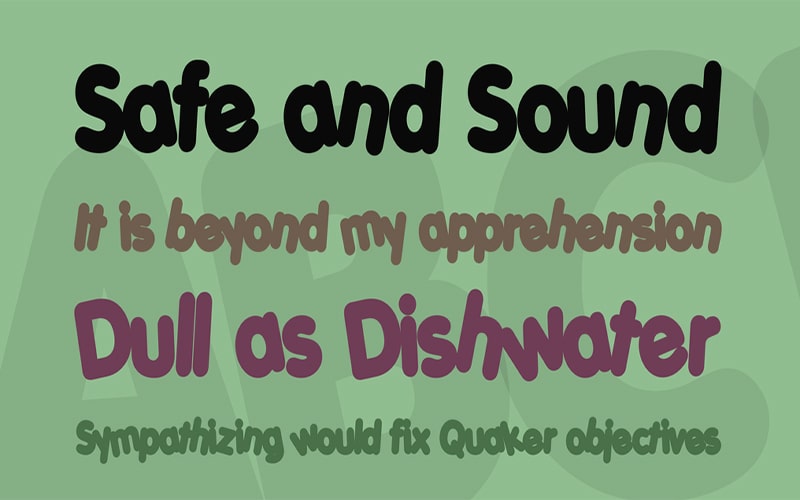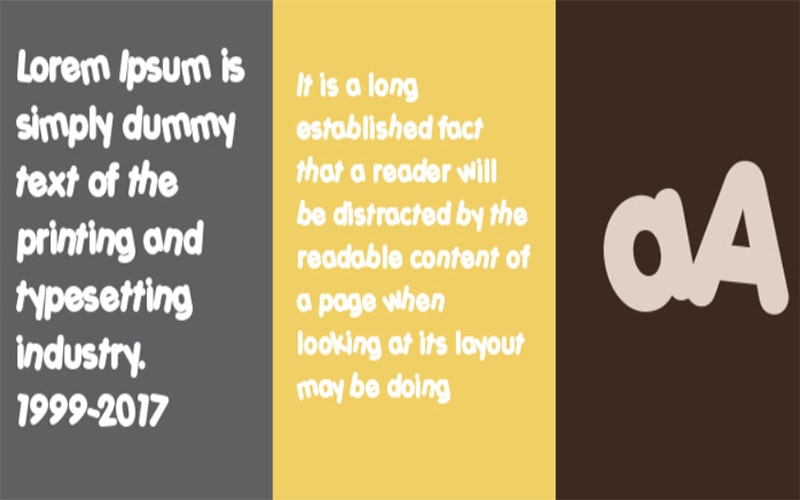
Porky’s Font Family is a Fancy, Comic typeface. This comic font has a rounded and circular texture. It is a great choice for you if you want to design an amazing invitation.
This font was designed by Font-a-Licious and published by Fontalicious for the first time. It was first seen in 2005. Later, it was updated on 02 March 2020.
The subfamily of Porky’s Font Family is regular. This typeface consists of 232 defined characters. Its texture qualities make him an excellent choice for creative projects.
This beautiful and stunning font Family contains two unique styles such as “Porky’s Font Regular” and “Porky’s Font Heavy”. These styles make it perfect for your design projects.
Porky’s Font
| Font Name: | Porky’s Font |
| Style: | Comic, Fancy, Typeface |
| Font Designer: | Font-a-Licious |
This fat-size texture Porky’s Font Family supports 67 multiple international languages that make it popular all over the world.
This amazing free version font is available in all lowercase and uppercase letters. It also includes all caps, numbers, and some special characters as well.
So you guys can use this vintage and stylish typeface in your various designs and logos. Let’s have a single look at the amazing texture of this font.